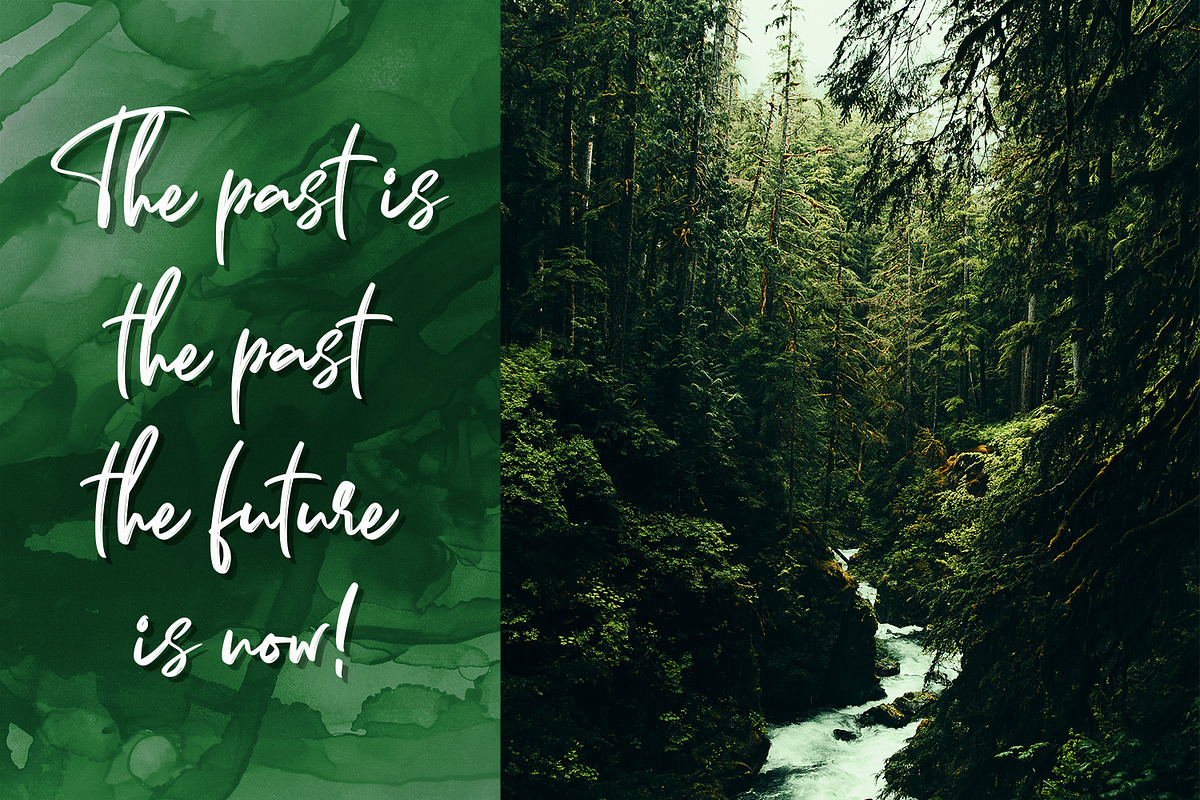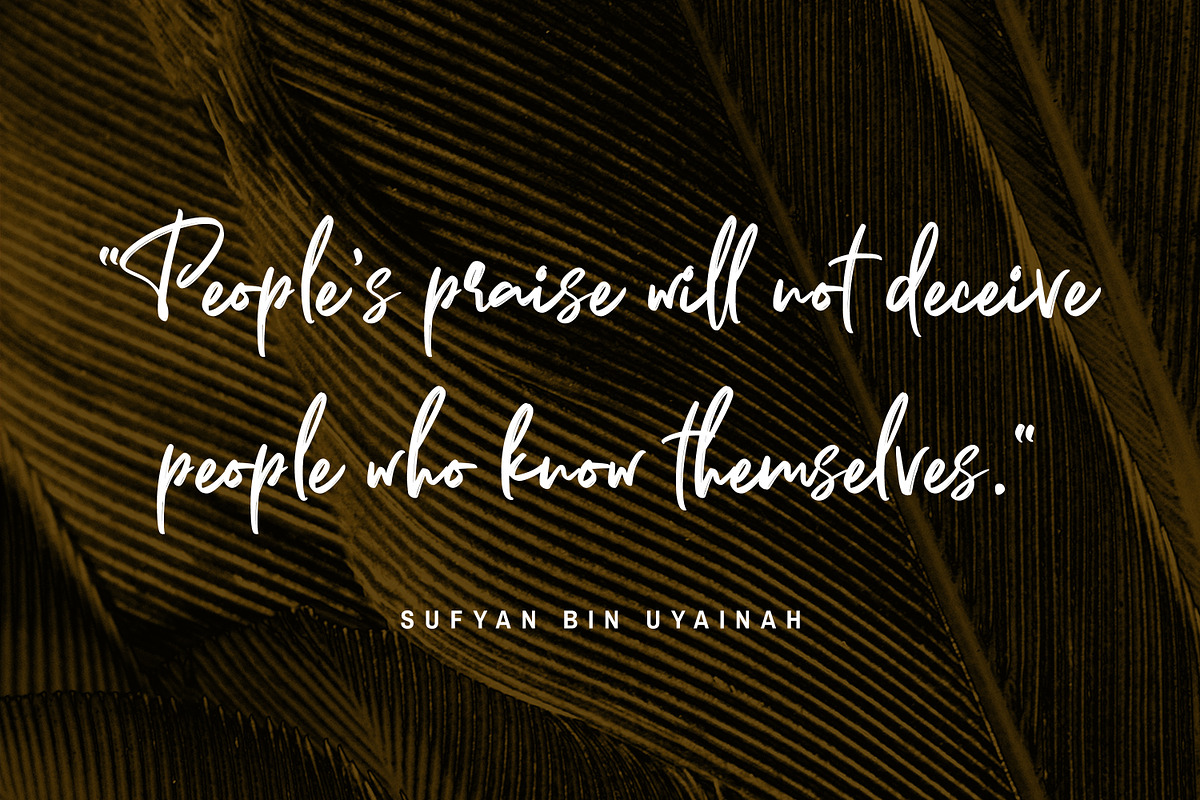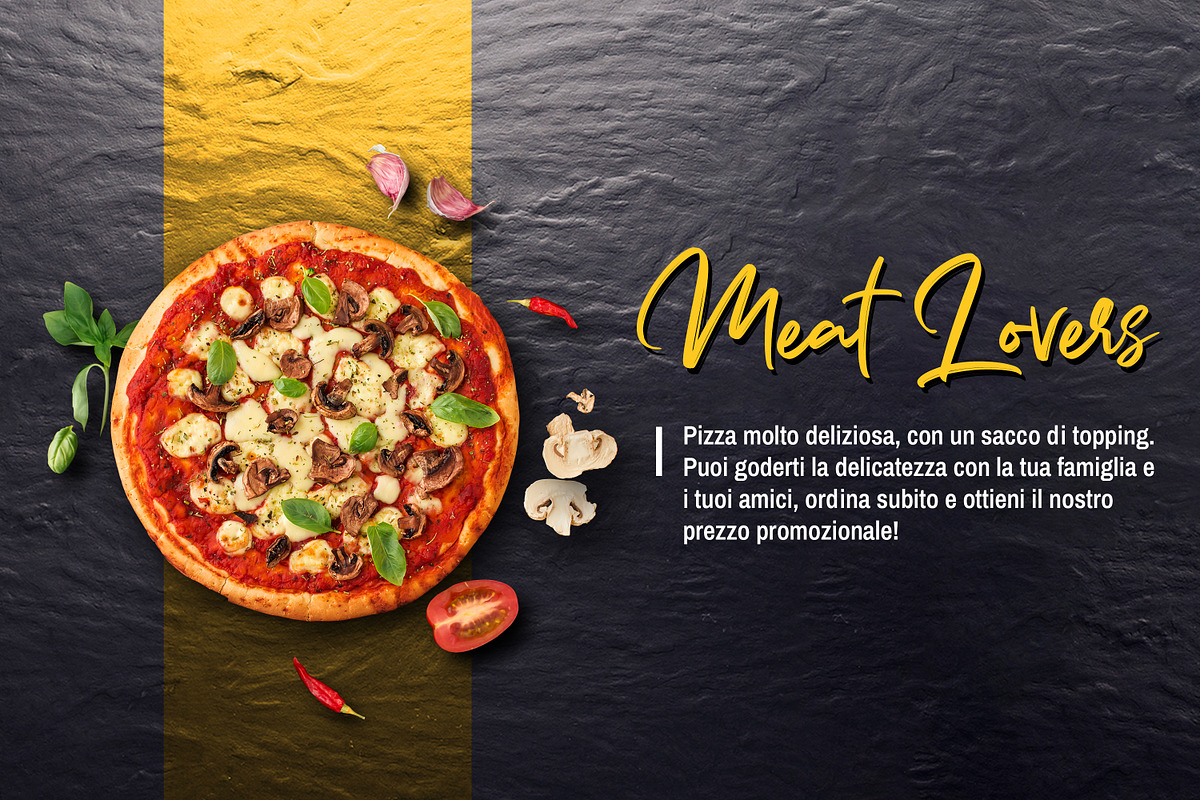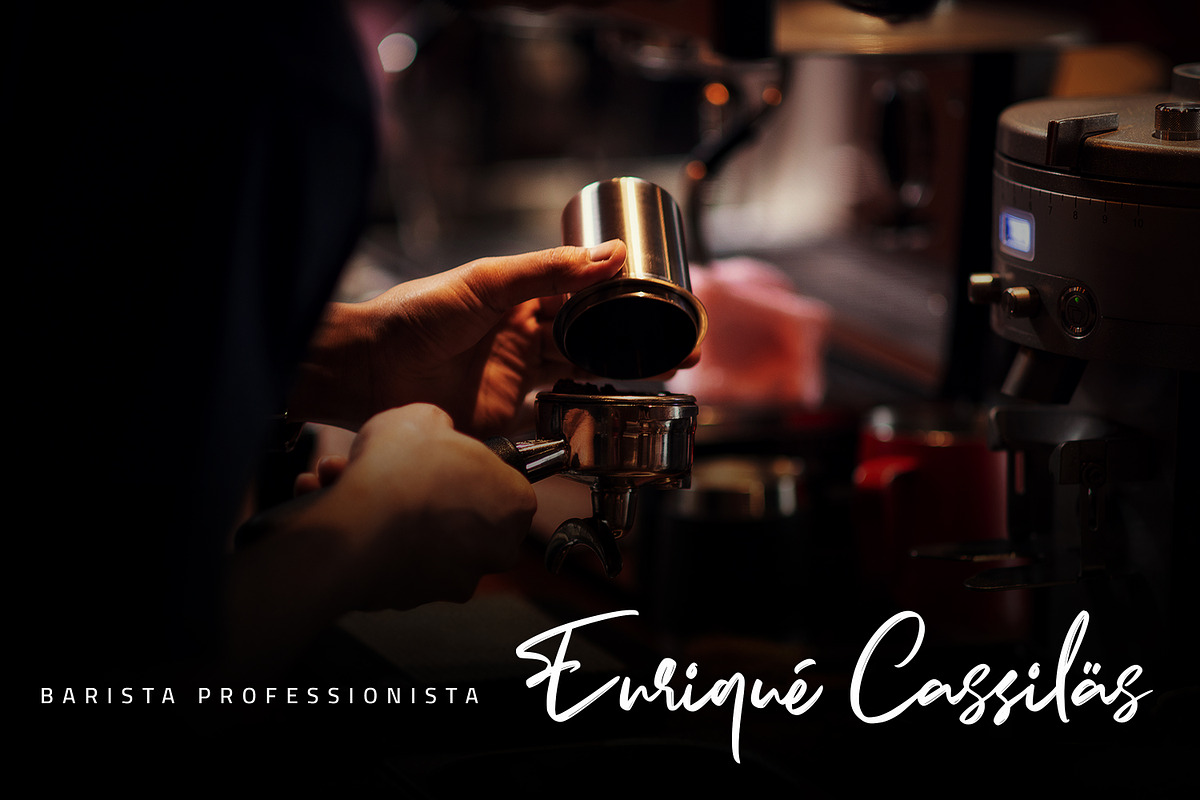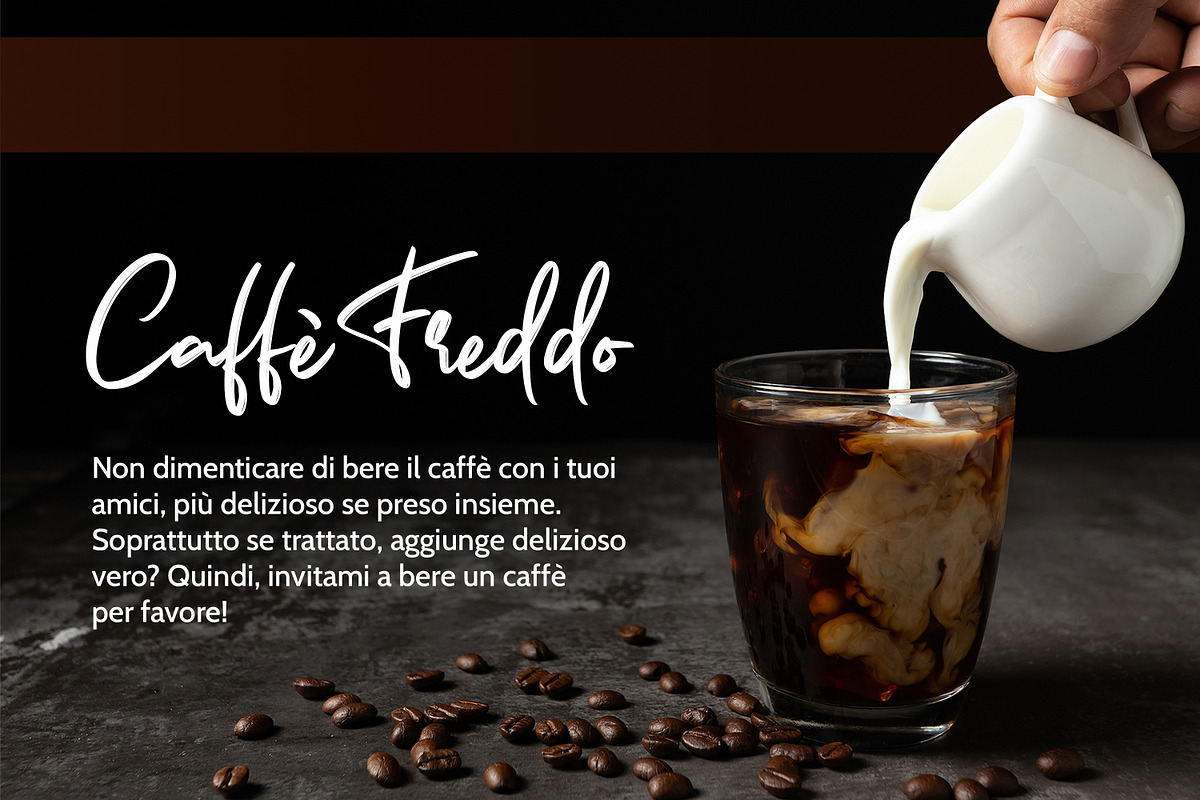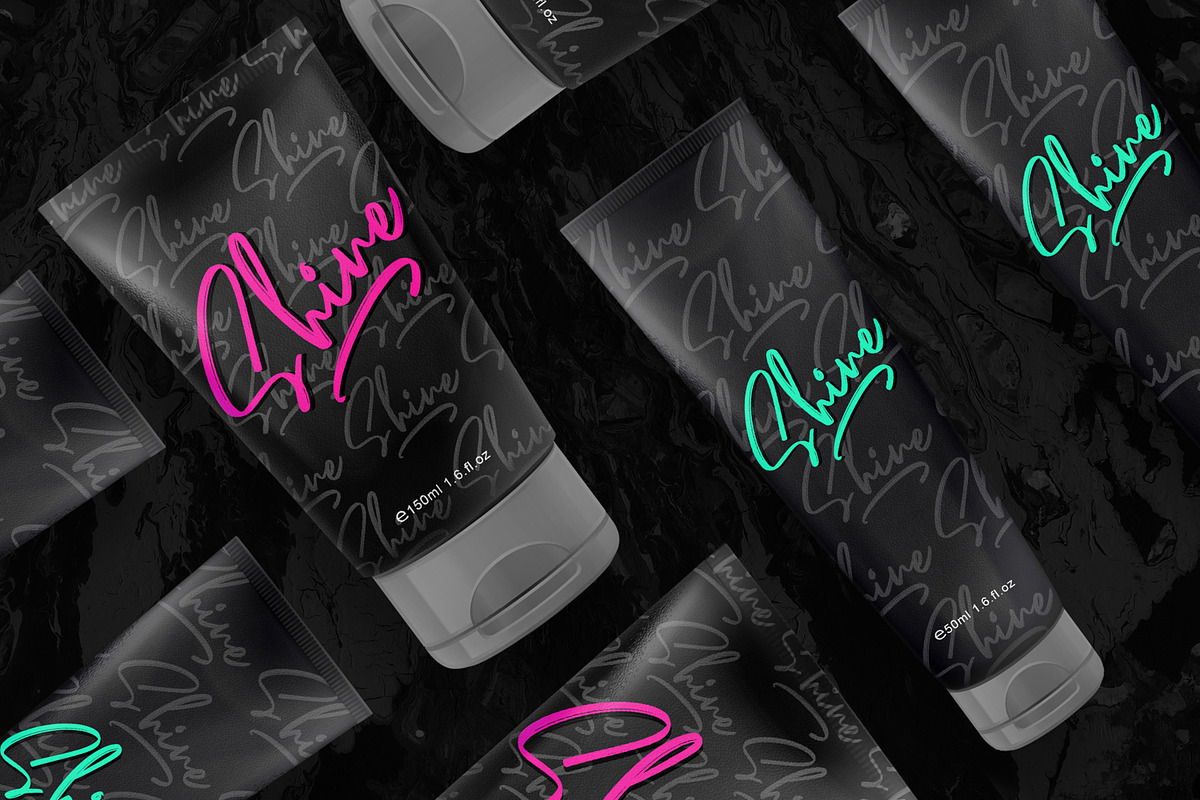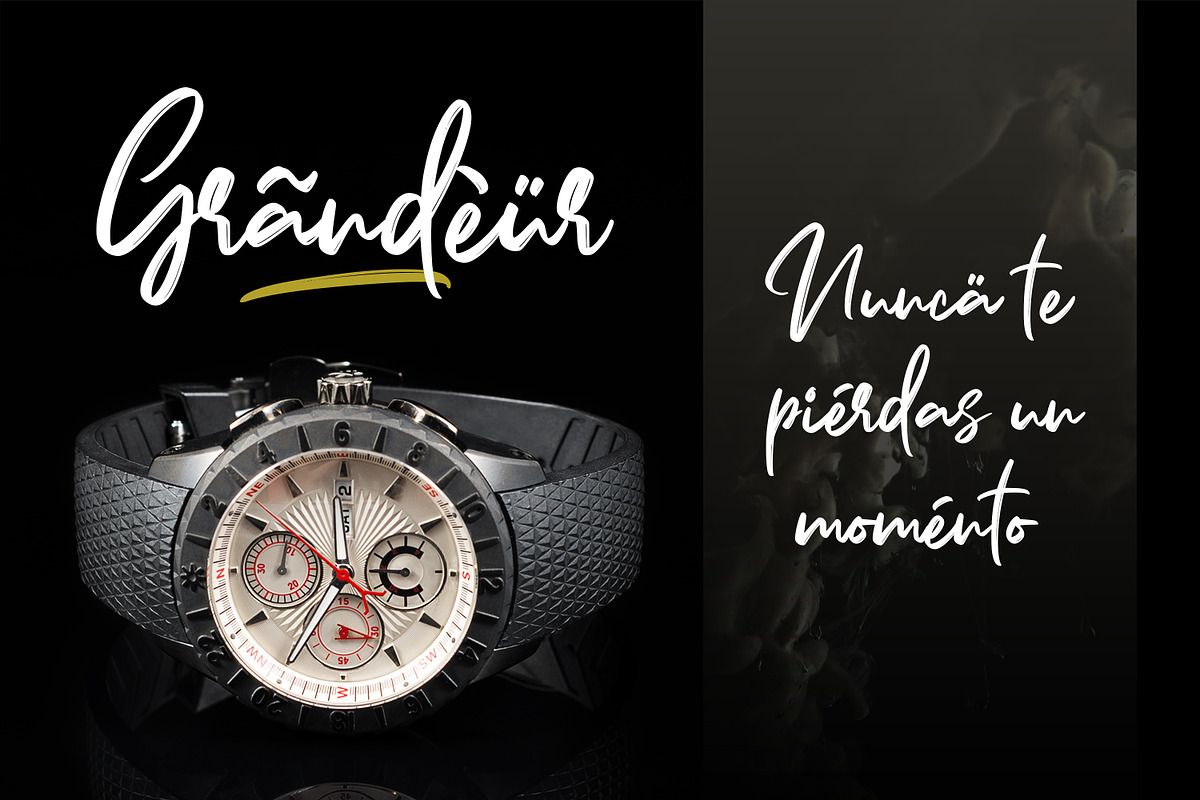
Sometimes - Fancy Signature font
Hello everyone, Introducing "Sometimes" Fancy signature font with 2 style regular and Slant. Inspired by luxury and branded stuffs make this font looks classy and awesome in many way to your latest project. Sometimes is perfect for logos & branding, photography, invitation, watermark, advertisements,product designs, stationery, wedding designs,label ,product packaging, special events or anything that need handwritting taste.
- Sometimes Regular
- Sometimes Slant
- Sometimes Swash